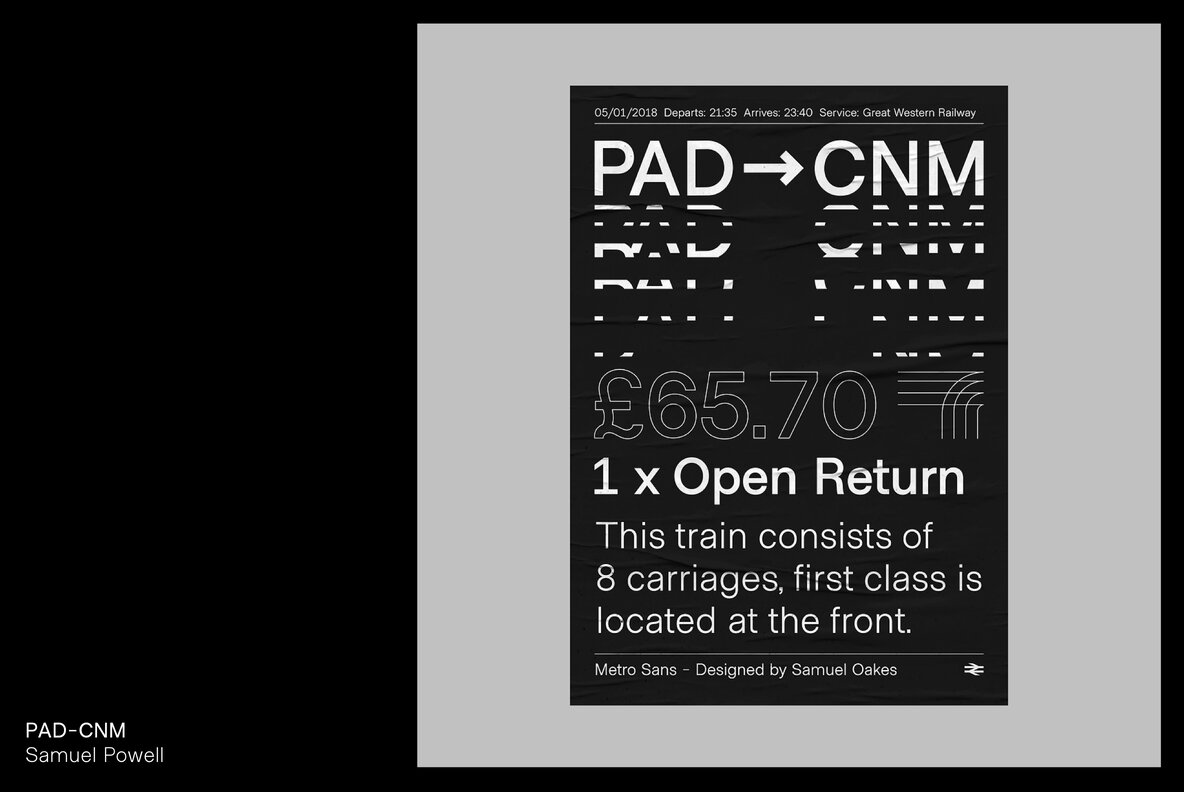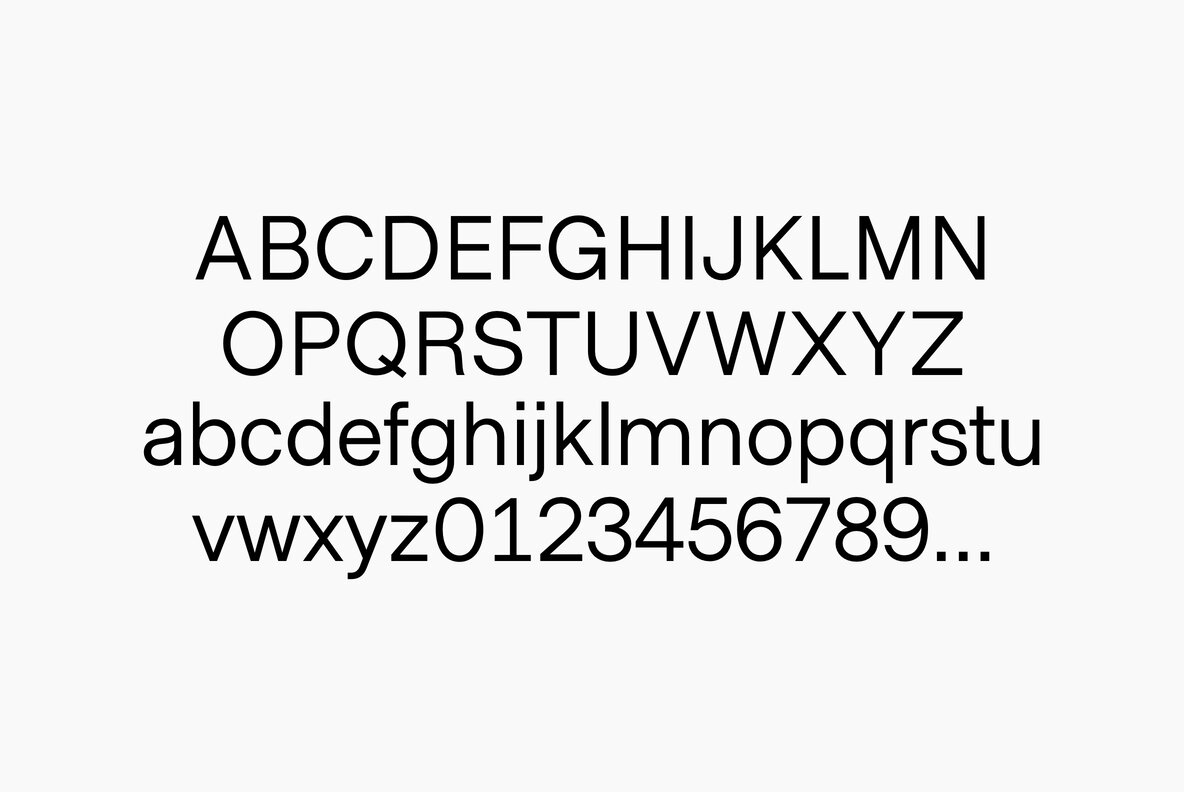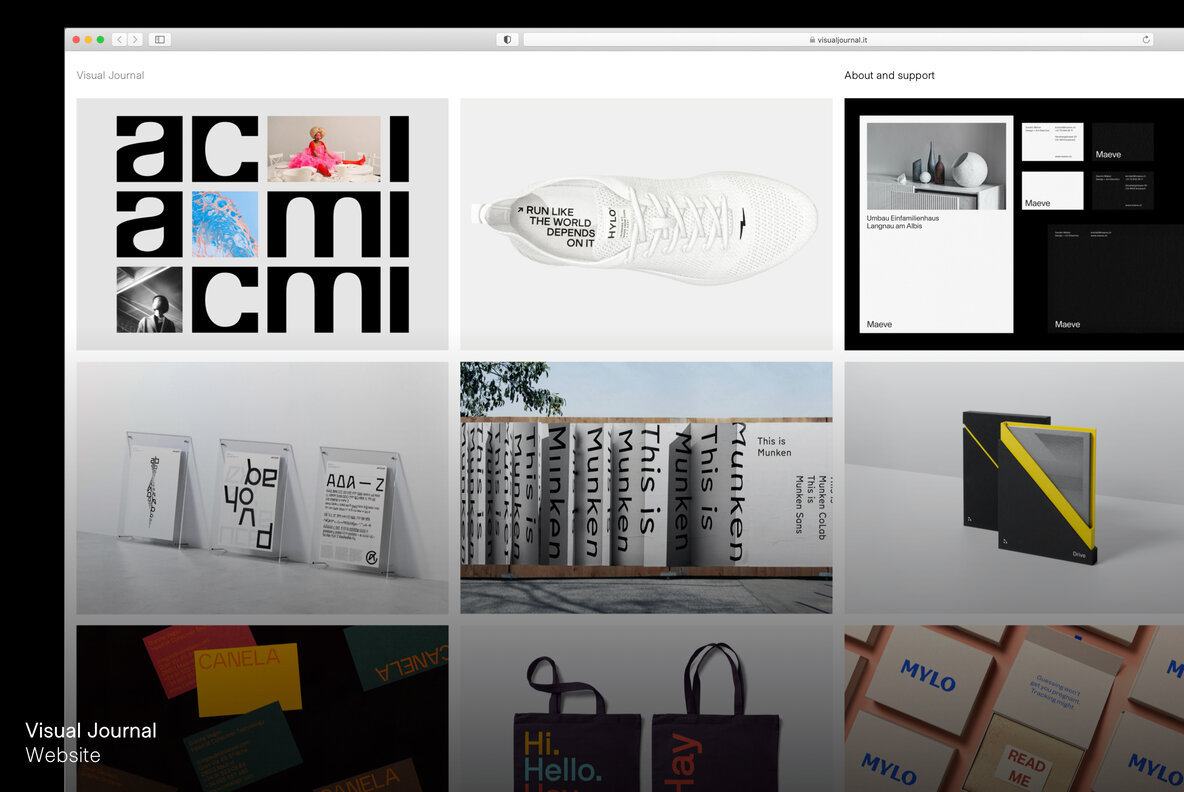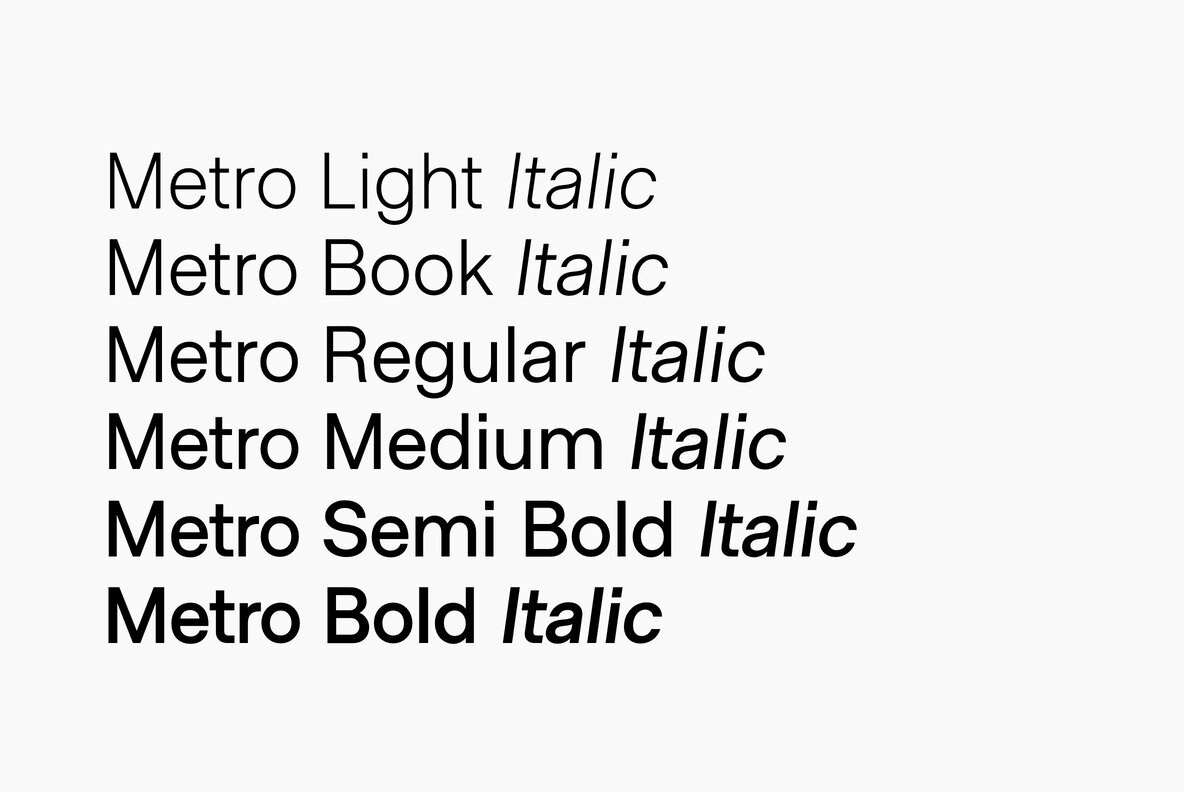
Metro Sans Font
The result of a study into the Paris Metro system; Metro Sans is a Grotesk typeface with personality. It bridges the gap between the stern terminals of a Swiss Neo-Grotesk, and the smooth curves of a modern day Geo-Grotesk. The two combine to give a versatile typeface that works well in both body and display weights. Full desktop family also includes a variable font file. (currently in beta for Illustrator and Photoshop CC)